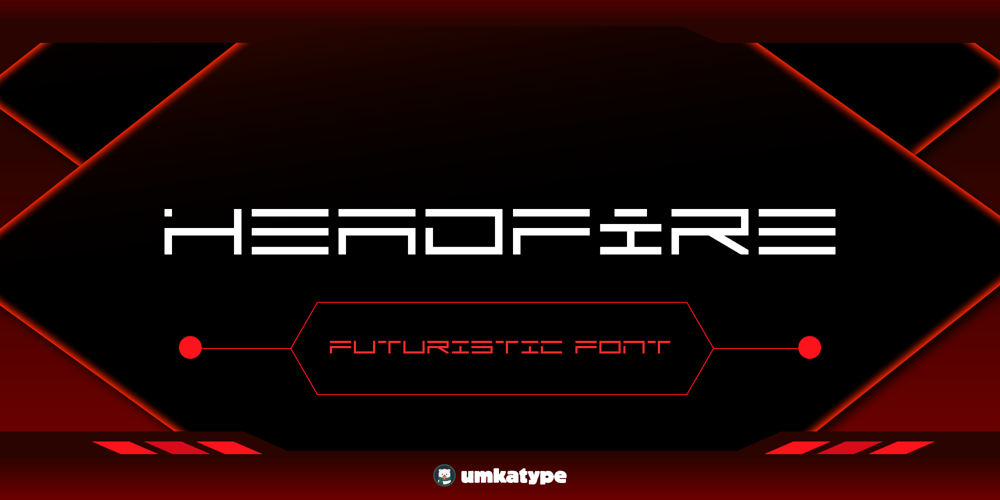
Headfire Font Family was designed by Alper Çakıcı and published by Umka Type. Headfire contains 1 styles and family package options. Headfire is a cutting-edge futuristic font designed for the digital age. With sleek lines and sharp edges, it embodies a sense of modernity and innovation. Its Cyrillic alphabet support adds versatility, making it suitable for a wide range of design projects in Russian and other languages. Headfire’s clean and minimalistic aesthetic makes it ideal for technology-related content, sci-fi themes, and anything that demands a futuristic touch. Whether used in digital interfaces, branding, or creative designs, Headfire is sure to make a bold statement.